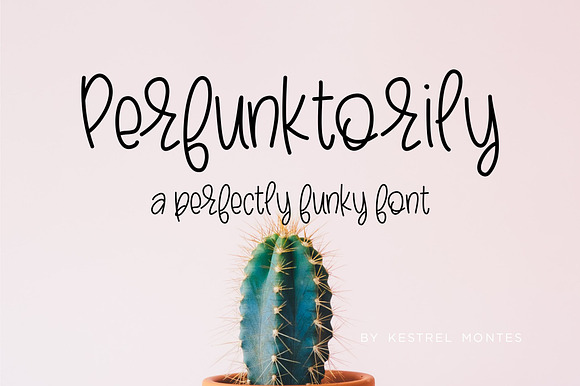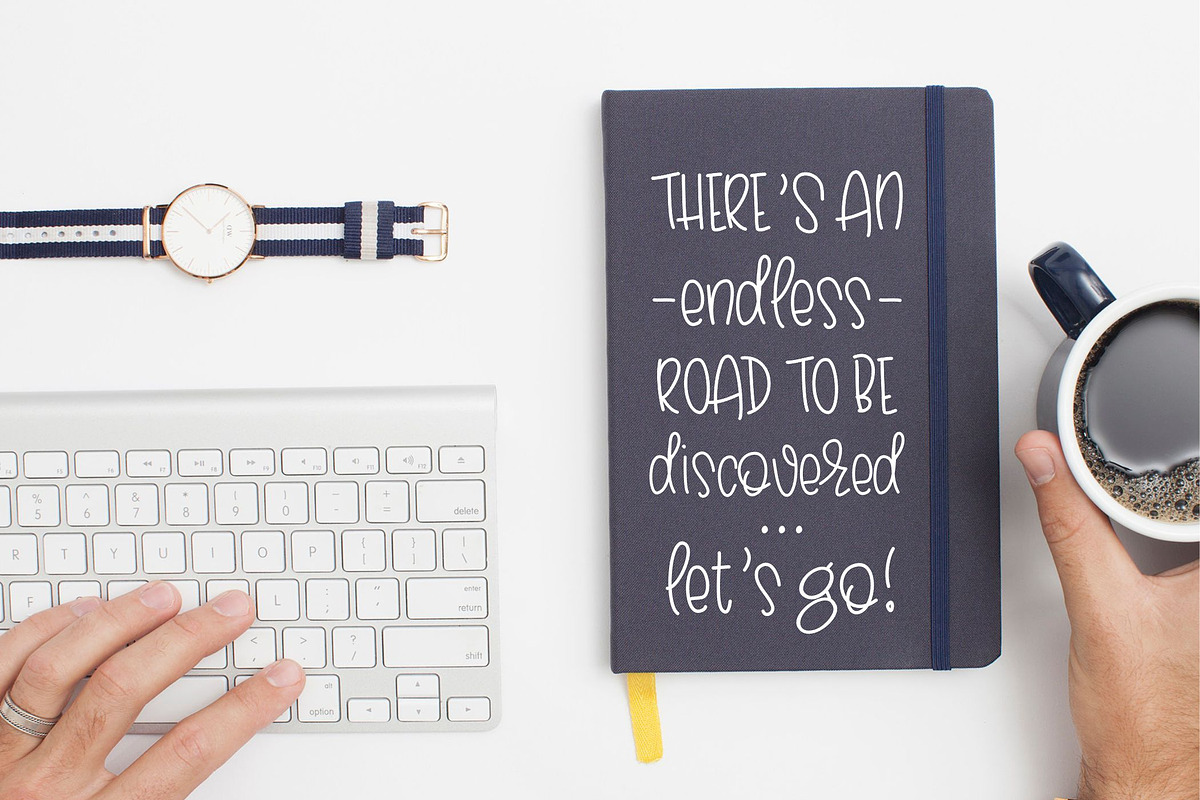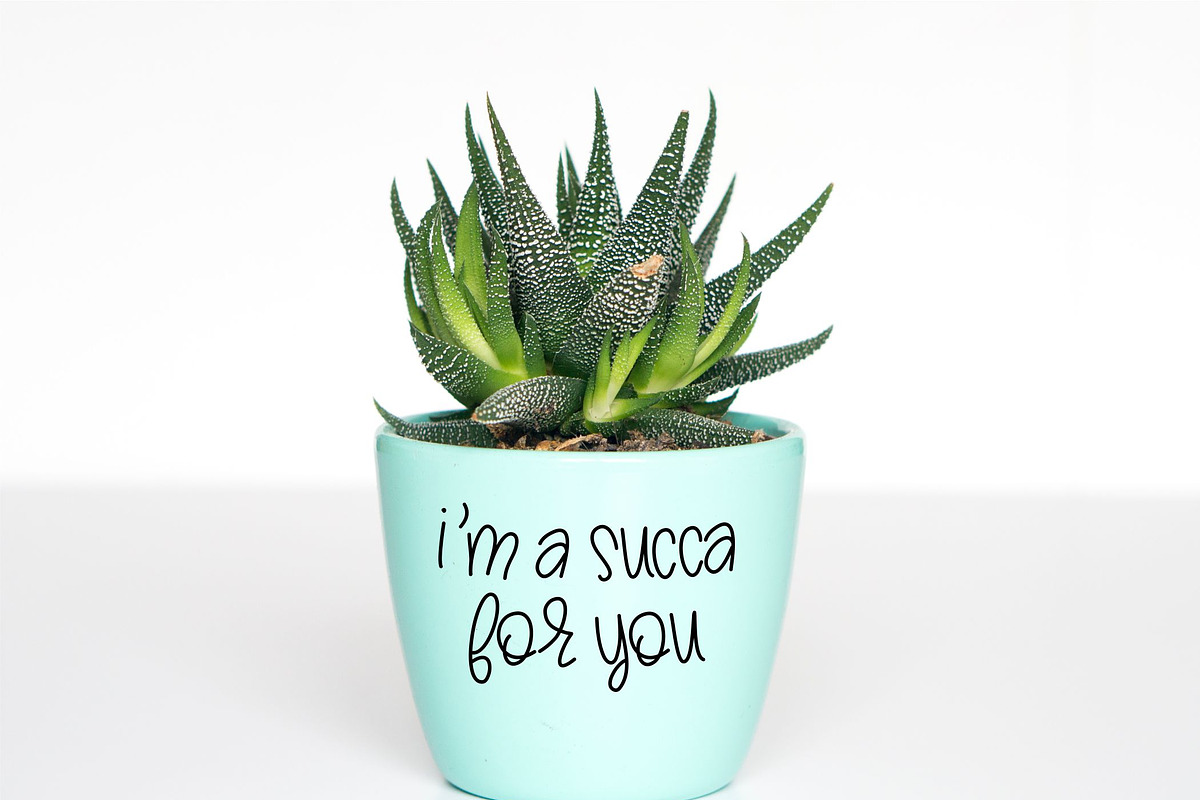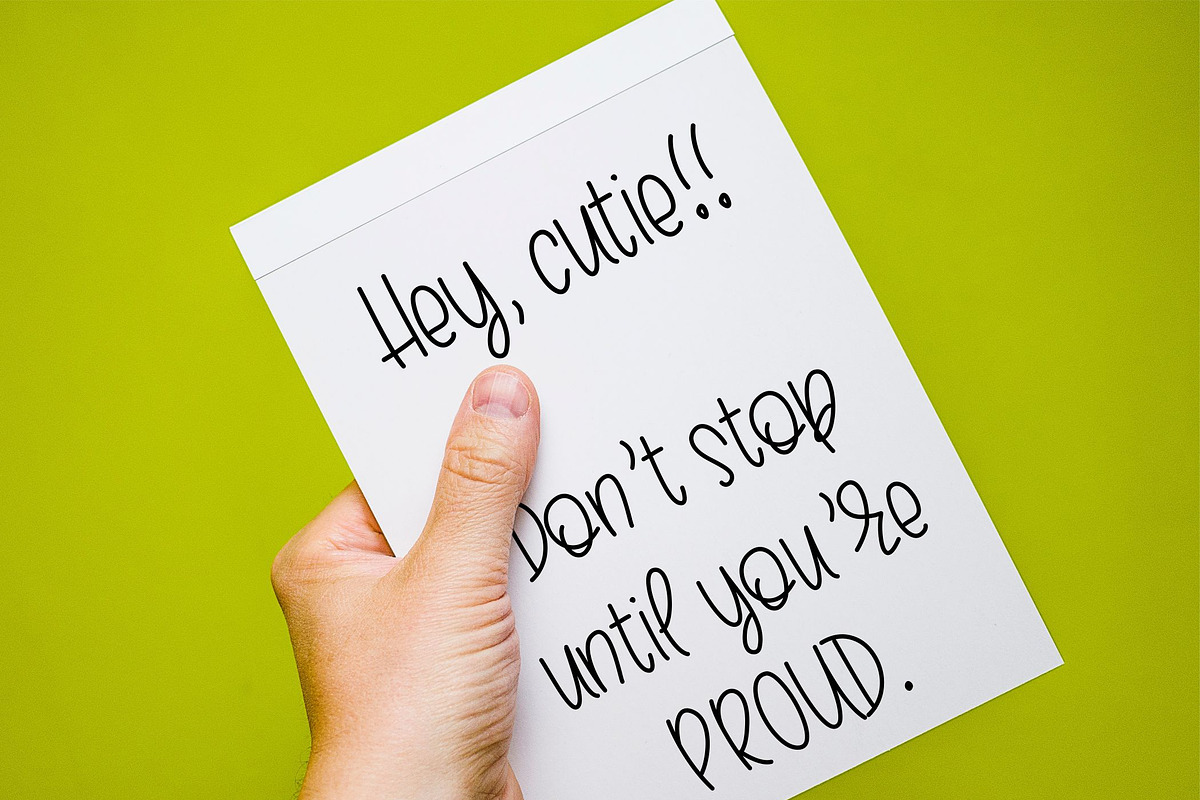
Perfunktorily handlettered font
Perfunktorily by Kestrel Montes is bubbly and perky modern print font in the hand lettered style so popular on Instagram!
Why Perfunktorily handlettered font is worth a look
Perfunktorily handlettered font by INKMETHIS fits naturally into Branding, posters, packaging, typography.